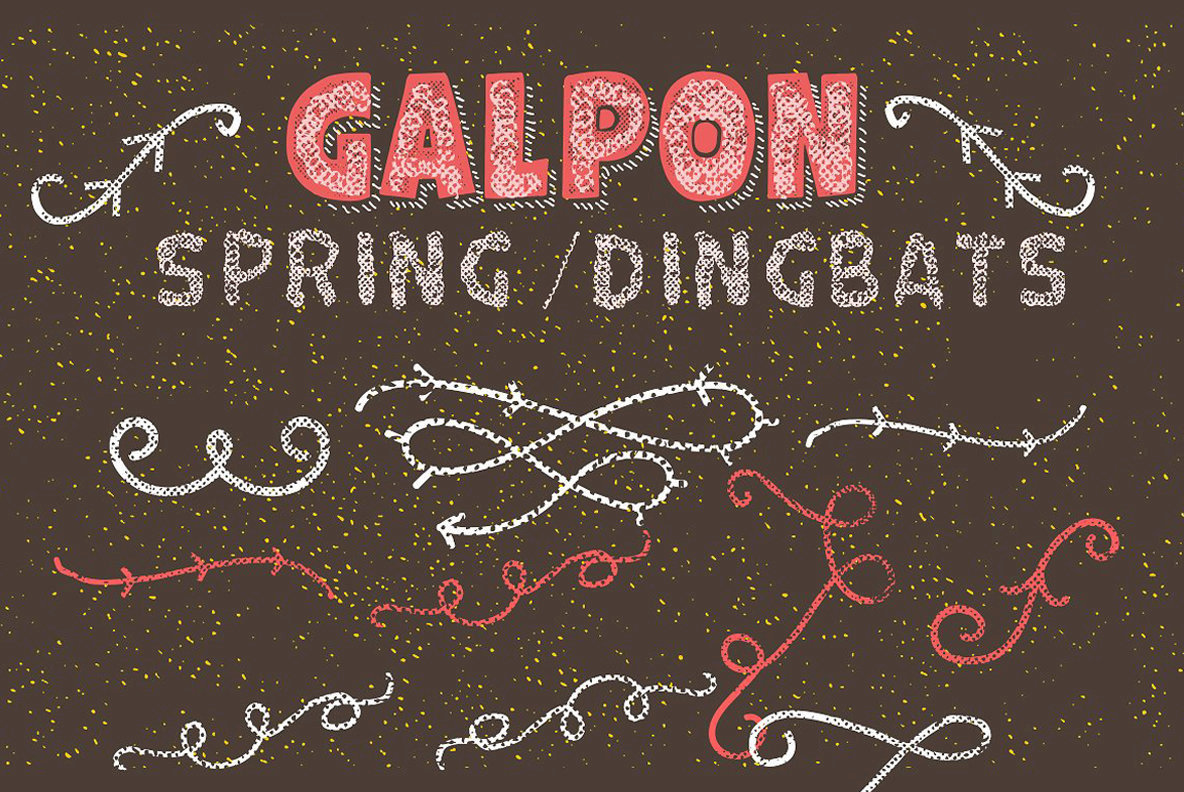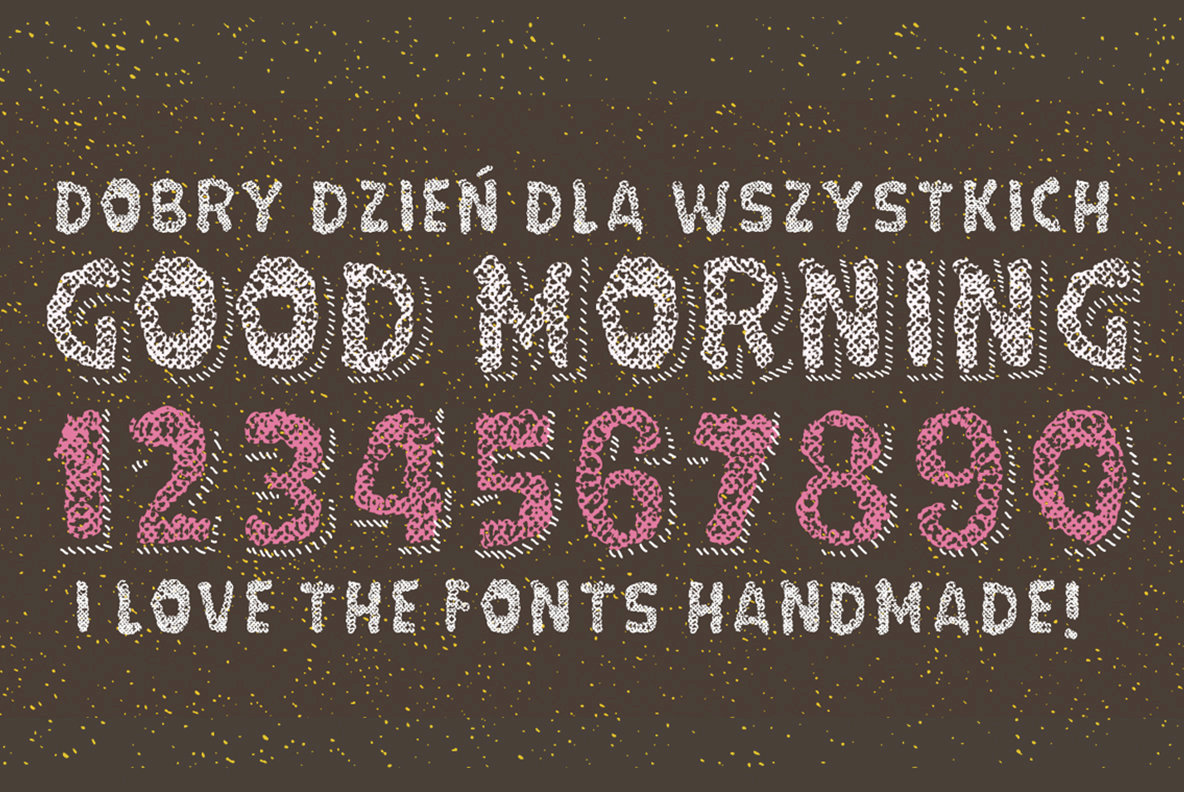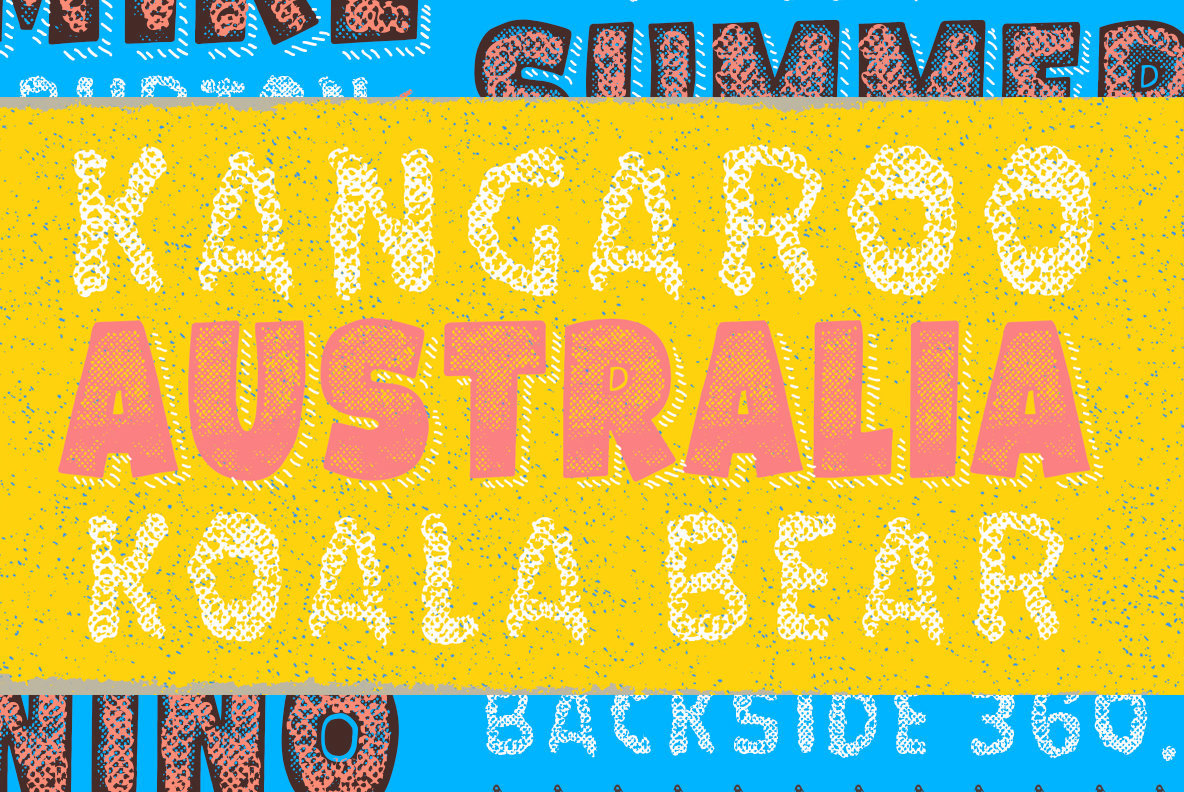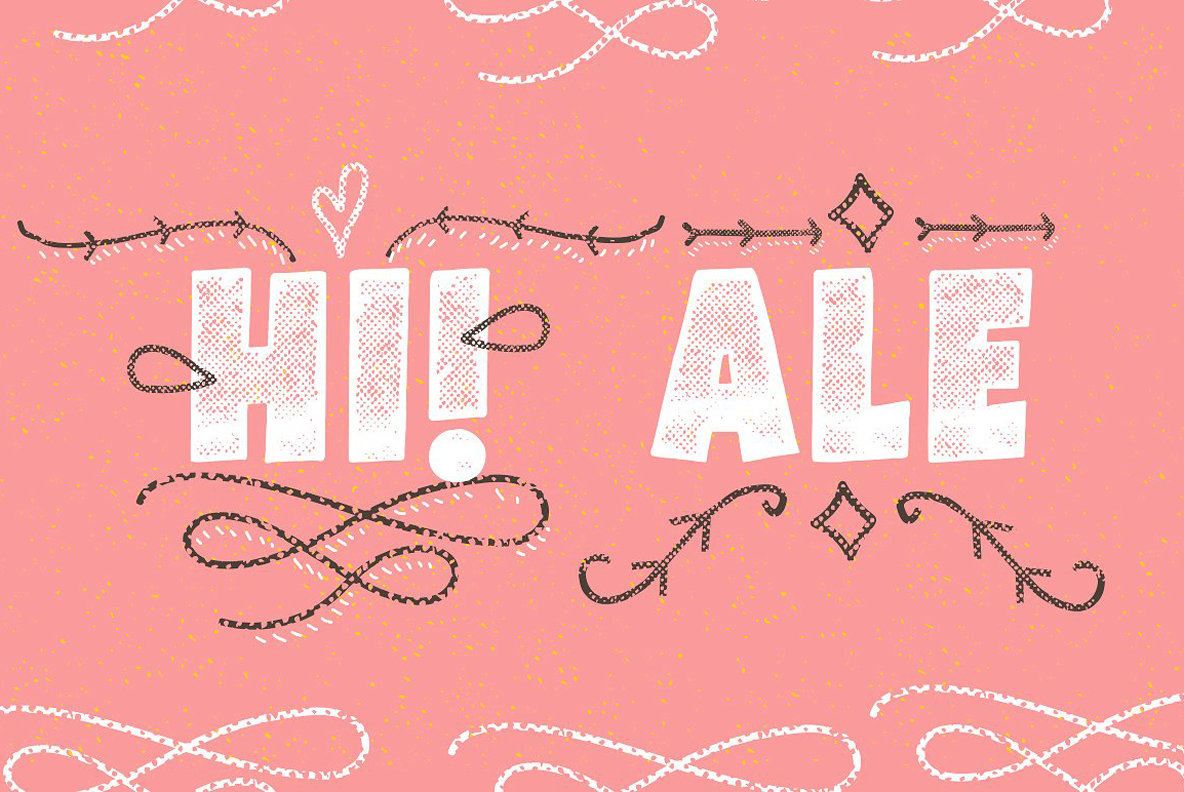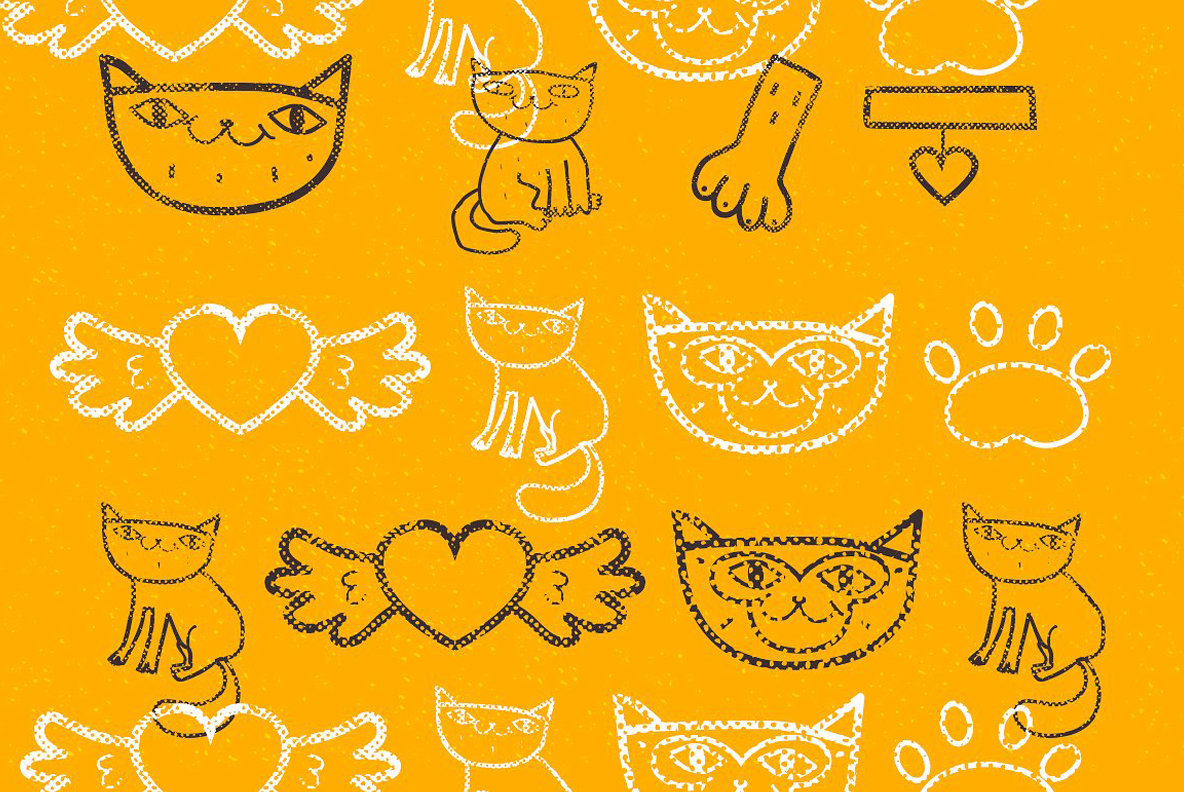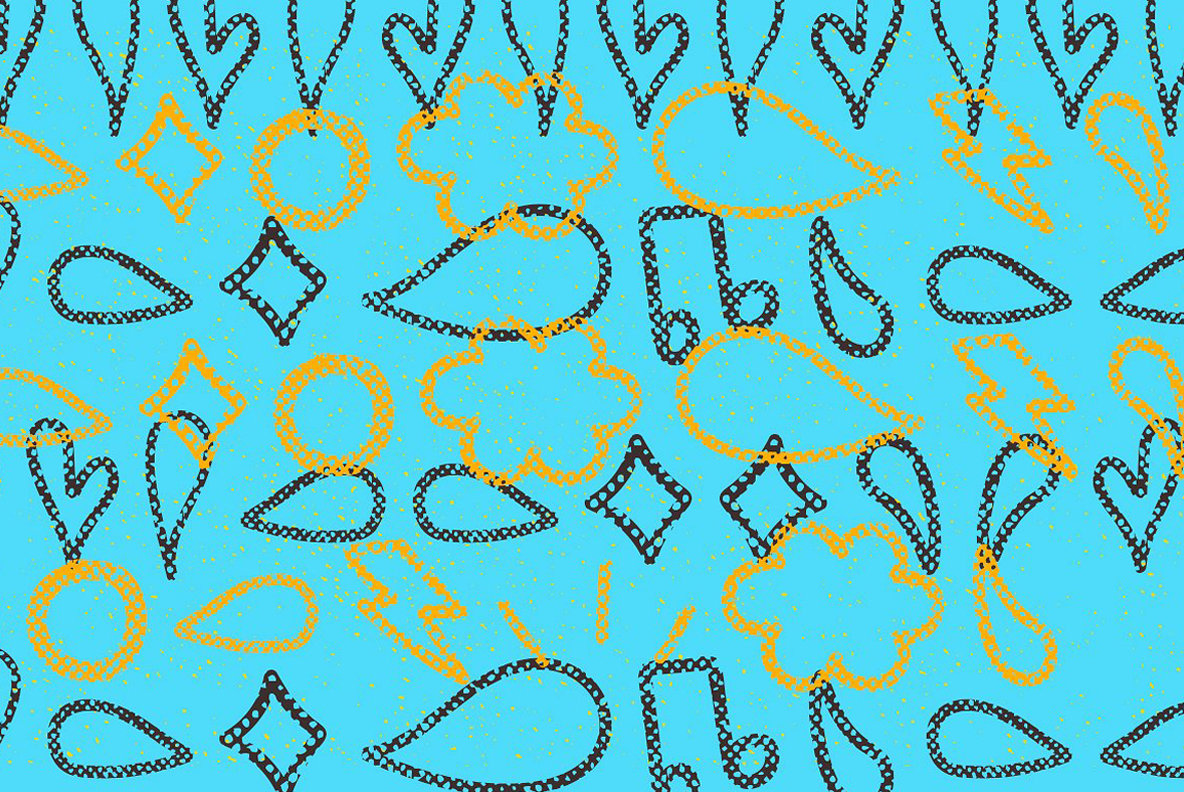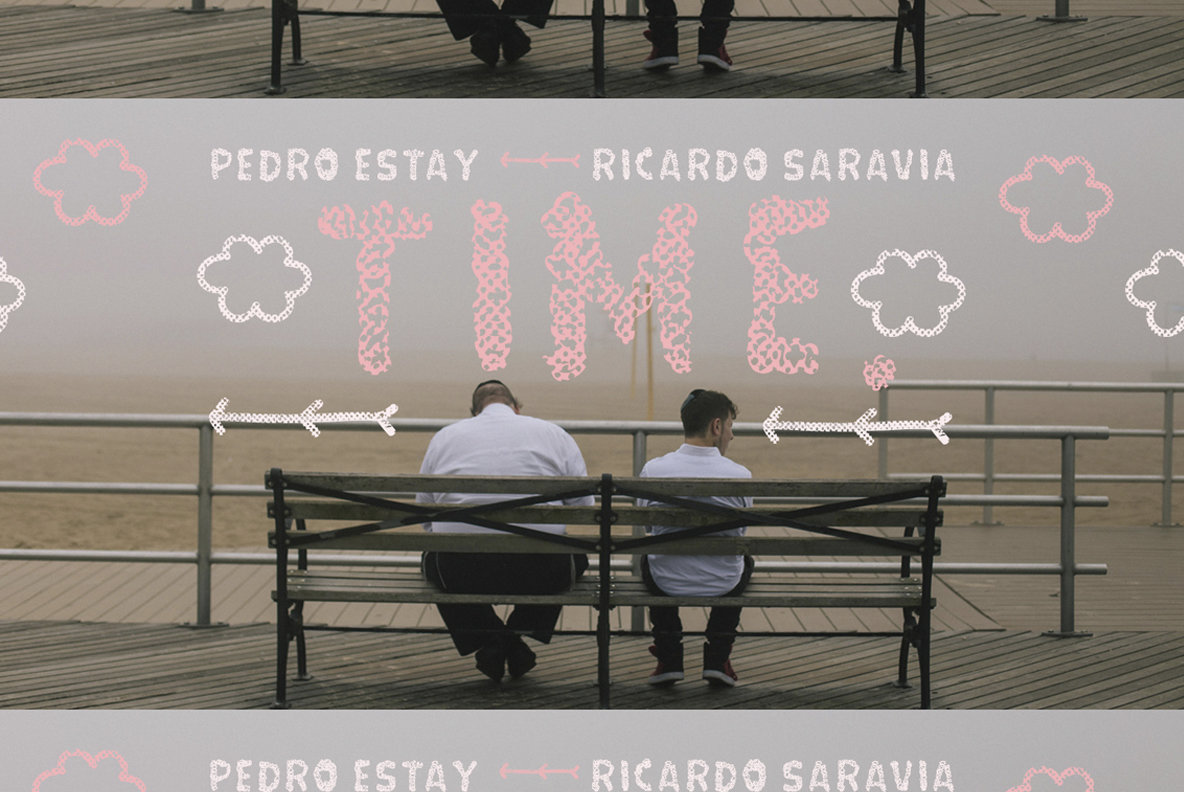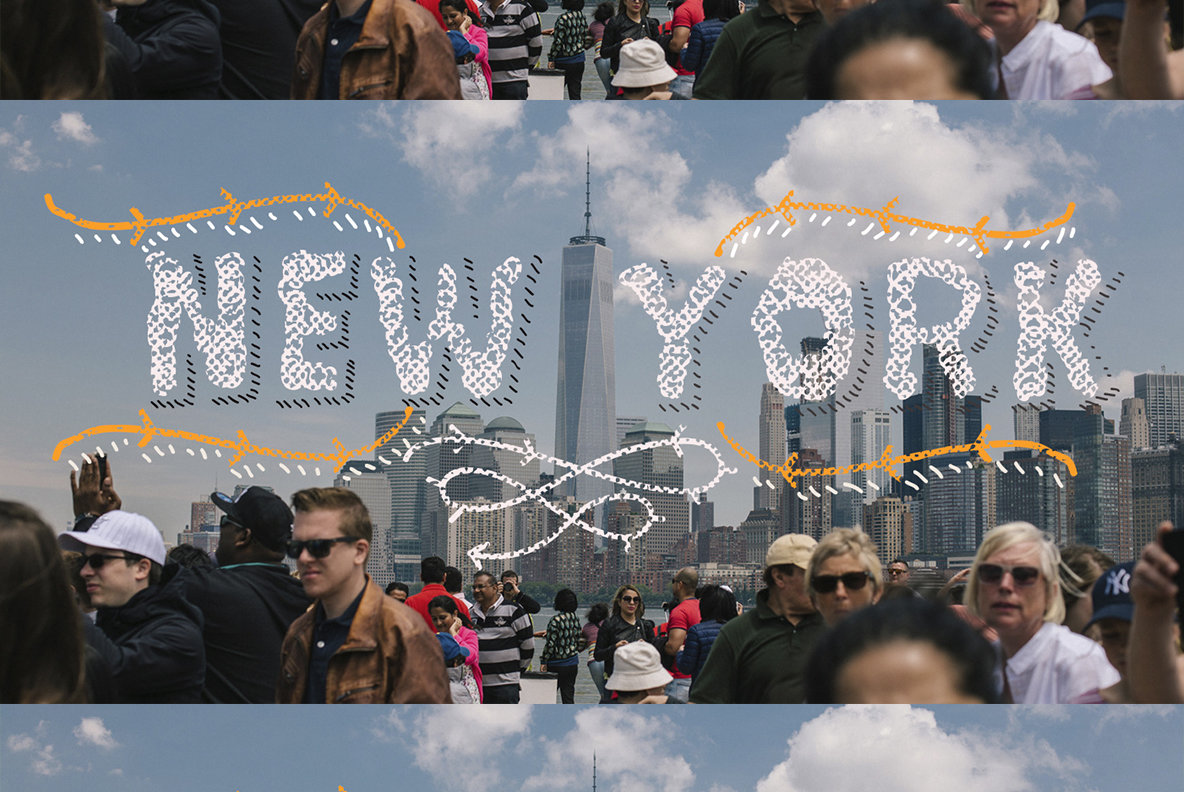
Galpon Spring Font
Galpon Spring Is a new version of "Galpon" where it can be combined with "Layer One" or shadow has multiple variants which makes it very attractive for different designs .